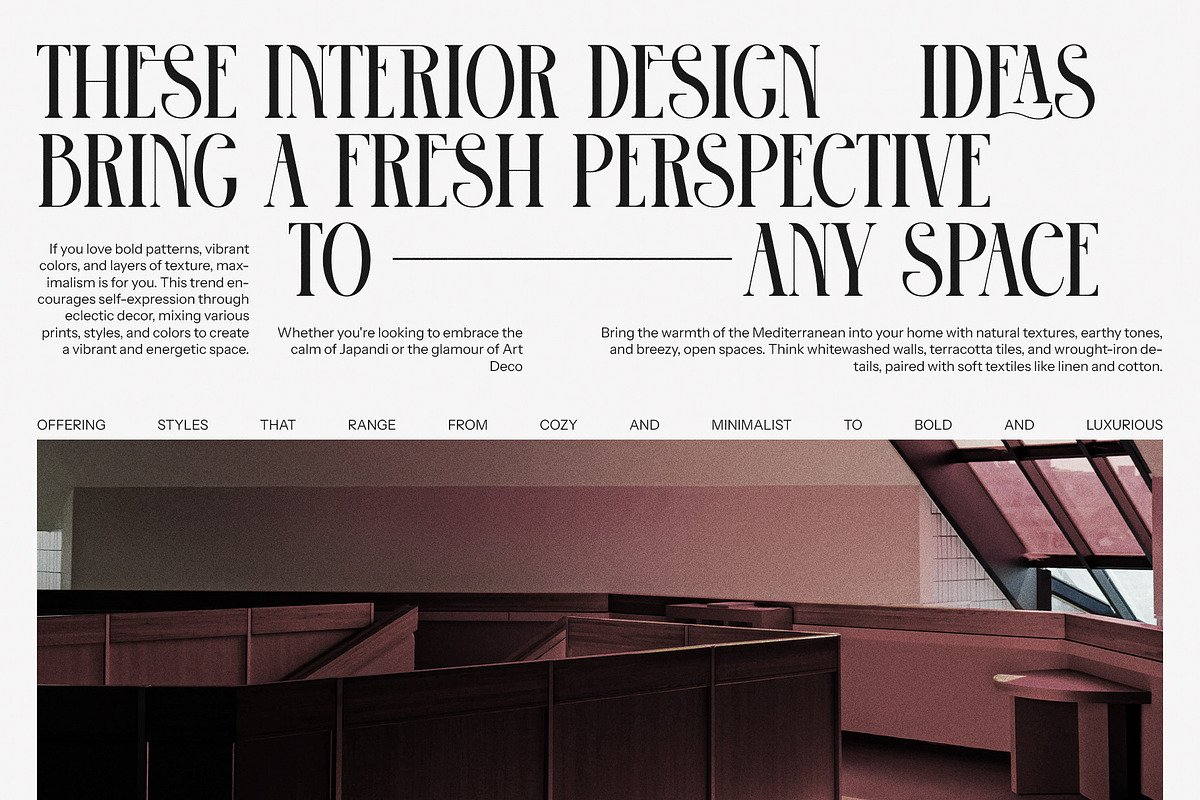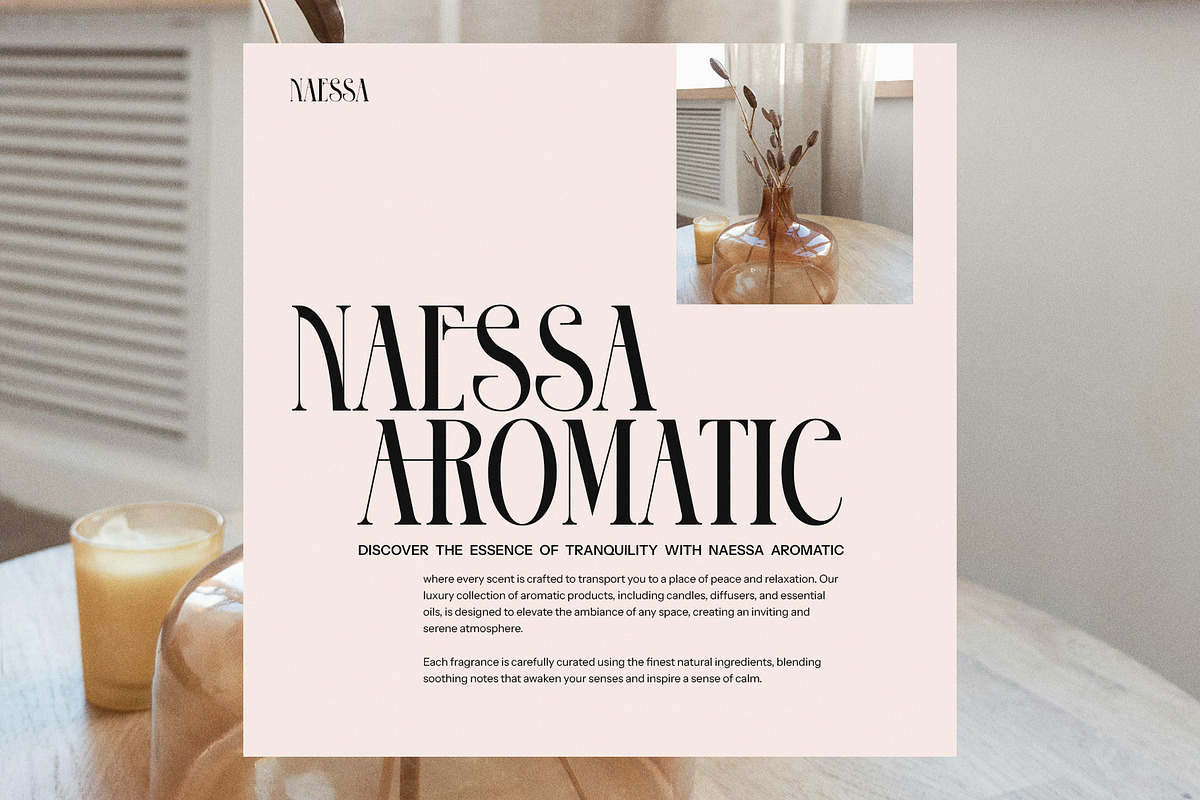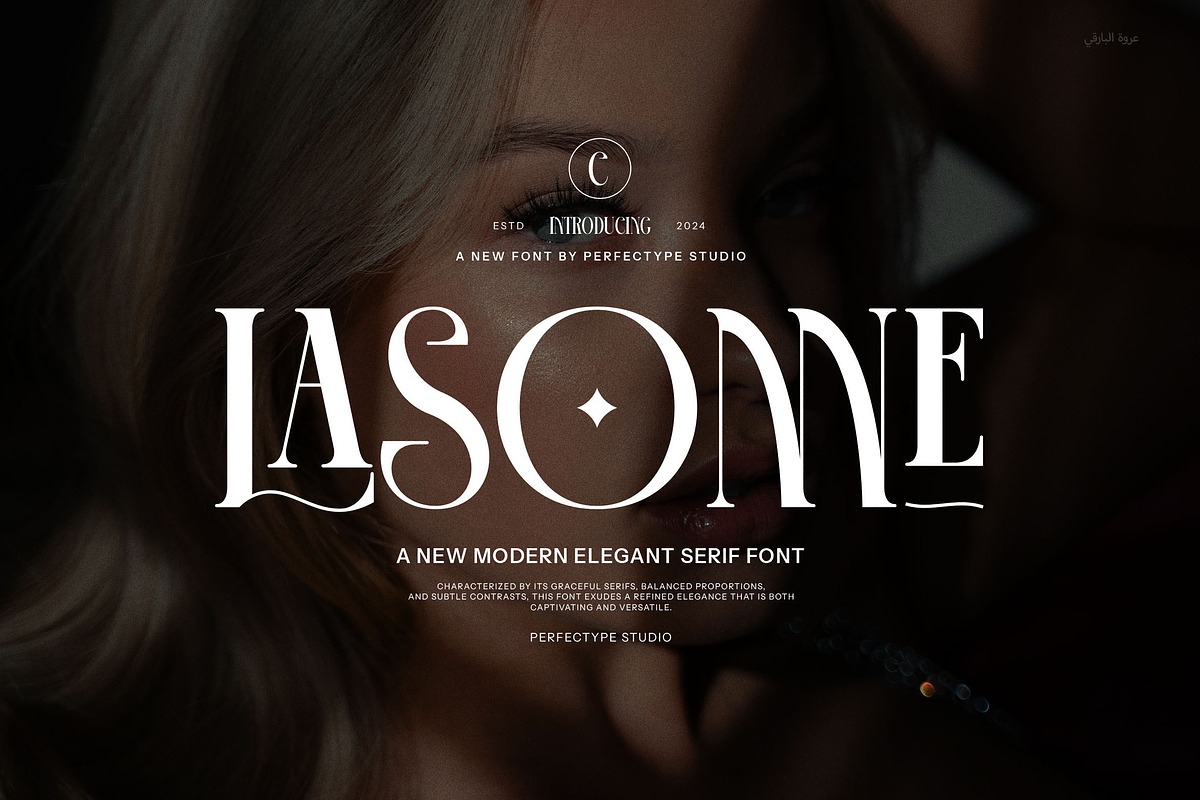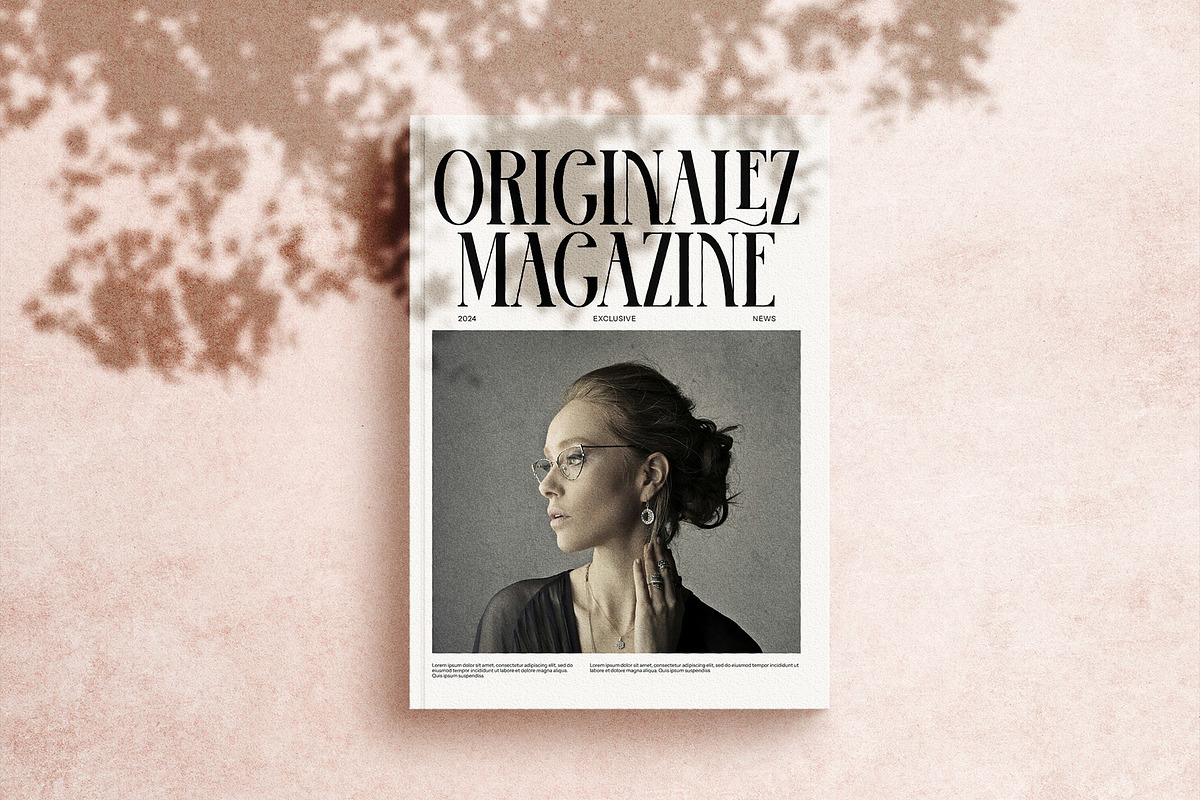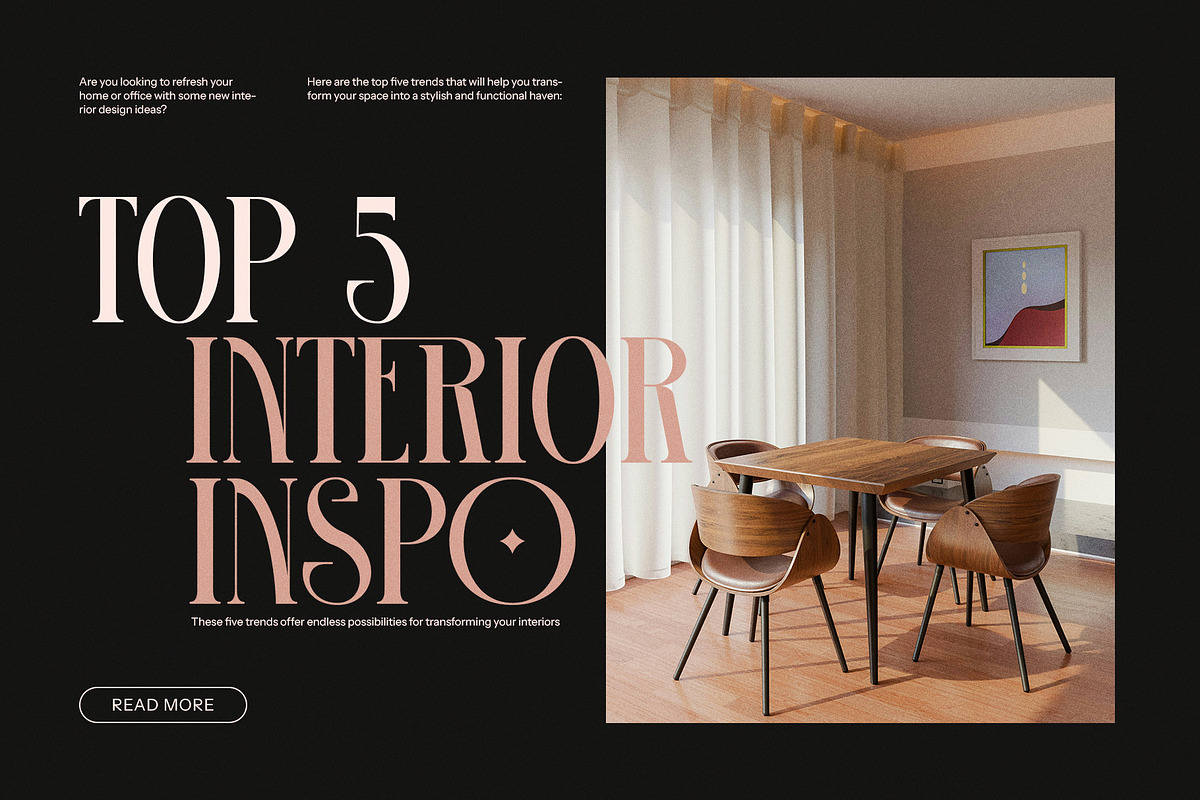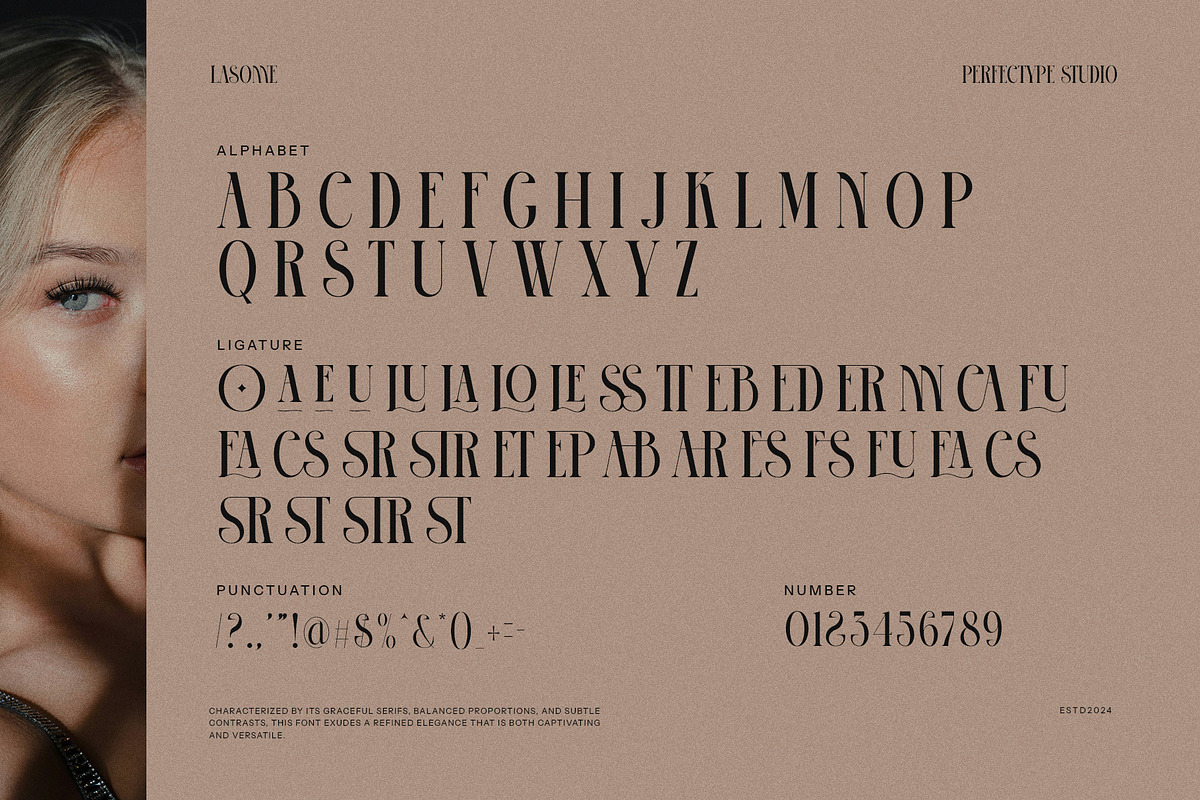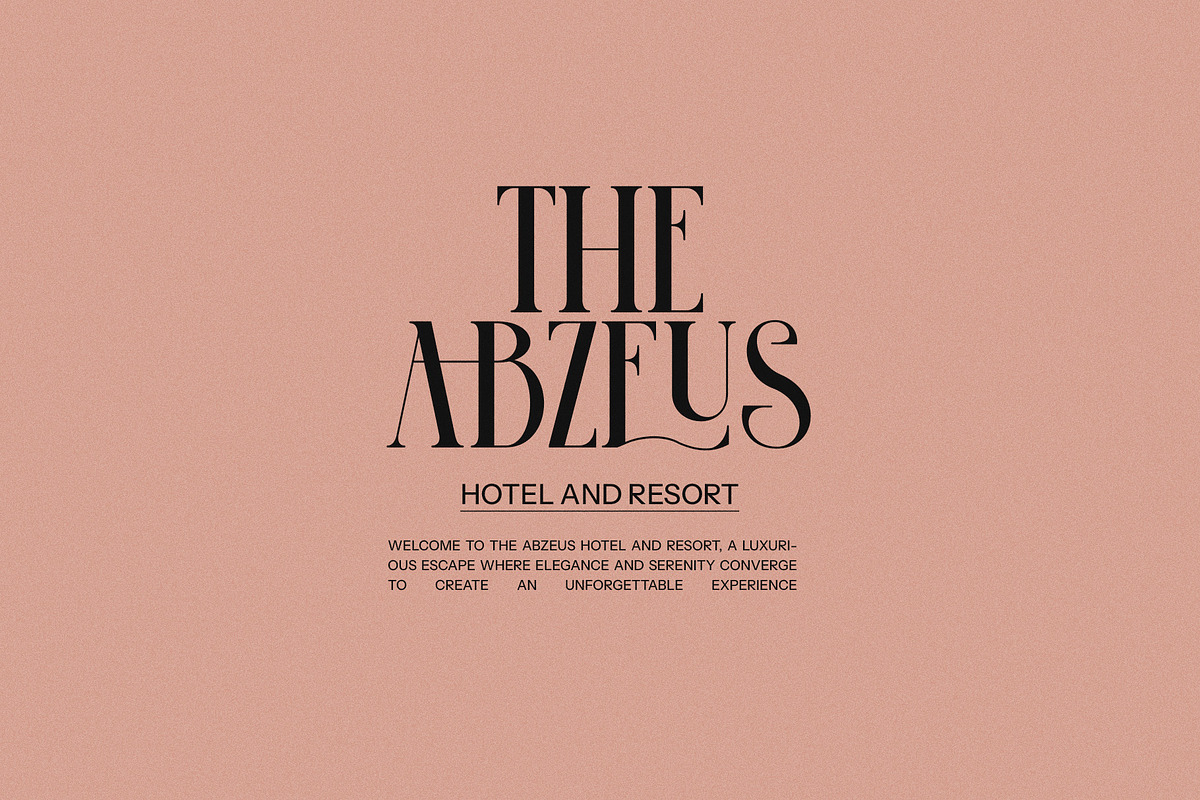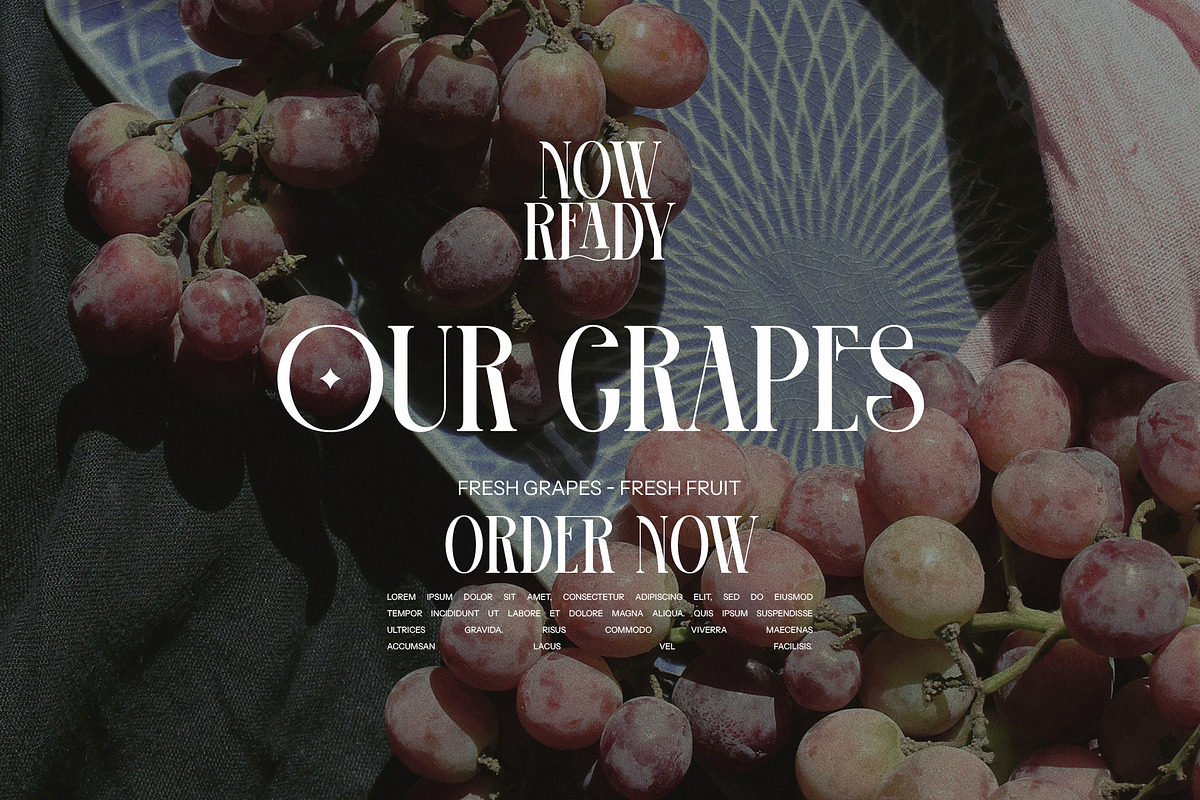
Lasonne Ligature Serif Font
Introducing Lasonne Ligature Serif Font—a typeface that beautifully encapsulates the allure of elegance and vintage sophistication. With its refined serif detailing, Lasonne offers a captivating blend of classic charm and modern functionality. Each character is thoughtfully designed, inviting a sense of nostalgia while ensuring your text remains strikingly contemporary.
What truly sets Lasonne apart is its remarkable ligature feature. This font seamlessly connects letters in a way that transforms ordinary text into extraordinary typography. The ligatures enhance the fluidity of your designs, creating a harmonious flow that captivates the reader’s eye. This characteristic not only adds a unique touch to your compositions but also elevates the overall aesthetic, making each word feel like an exquisite piece of art.
Lasonne is incredibly versatile, making it an ideal choice for various design projects. Whether you’re crafting a distinctive logo, developing a cohesive branding identity, designing elegant magazine layouts, or creating eye-catching product packaging, Lasonne adapts effortlessly to your vision. Its elegant serifs lend a sense of tradition and authenticity, while the stylish ligatures introduce a modern twist, ensuring your work stands out in a crowded marketplace.
This font’s elegance extends beyond its visual appeal; it is crafted for readability and functionality. The thoughtful design allows Lasonne to maintain clarity at various sizes, making it suitable for both digital and print formats. Whether displayed in bold headlines or used for detailed body text, this font ensures your message is communicated with sophistication and style.
With a comprehensive character set, Lasonne supports multilingual applications, broadening its usability for diverse audiences and projects. This versatility, combined with its distinct aesthetic, makes it an essential tool for any designer looking to create memorable and impactful designs.
Experience the enchanting qualities of Lasonne Ligature Serif Font and let it inspire your creativity. With each letter, you have the opportunity to craft a narrative that resonates, bringing your ideas to life with an elegance that is both timeless and unique. Transform your projects into visual masterpieces that capture attention and leave a lasting impression, all with the artistry of Lasonne.